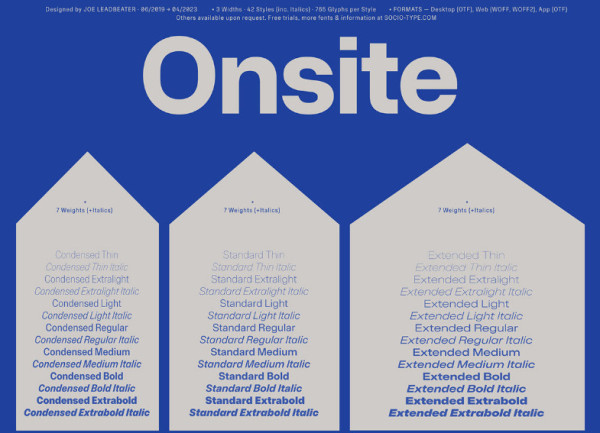
Onsite Font
Onsite Font by Sociotype Foundry is a very agile typeface. Onsite combines the enduring style of a mid 20th-century grotesk with the industrial feel and systematic range of widths inspired by German road signage. Originally designed in just two styles for our own in-house use at Sociotype, Onsite has grown into a family of three widths and 42 styles, with 766 glyphs per style.